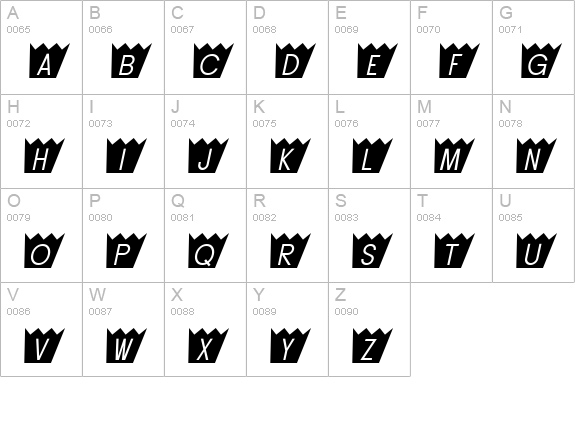
SF Buttacup Oblique Font Details
SF Buttacup Oblique is a distinctive, italic variant in the SF typeface family \xE2\x80\x94 well suited to design and typography projects.
SF Buttacup Oblique is a captivating and stylish font that adds a touch of elegance to any design project. With its unique slanted italic style, this font exudes a modern and sophisticated vibe that is sure to captivate the audience's attention. The strong and bold letterforms of SF Buttacup Oblique create a sense of confidence and power, making it an ideal choice for logos, headlines, and displays that require a strong visual impact. Its smooth curves and carefully crafted details give it a refined and polished appearance, making it perfect for luxury brands, fashion magazines, and high-end products. One of the most appealing aspects of SF Buttacup Oblique is that it is available for free download at FontsMarket.com. This means that designers, creatives, and enthusiasts alike can access this stunning font without any cost, allowing for endless possibilities and creative exploration. Whether you are working on a website design, branding project, or advertising campaign, SF Buttacup Oblique offers a versatile and eye-catching solution. Its stylish and contemporary aesthetic will effortlessly elevate your designs, ensuring that they stand out from the crowd. So, why wait? Take advantage of this incredible opportunity and download SF Buttacup Oblique for free at FontsMarket.com. Unleash your creativity and let this font bring your designs to a whole new level of elegance and sophistication.